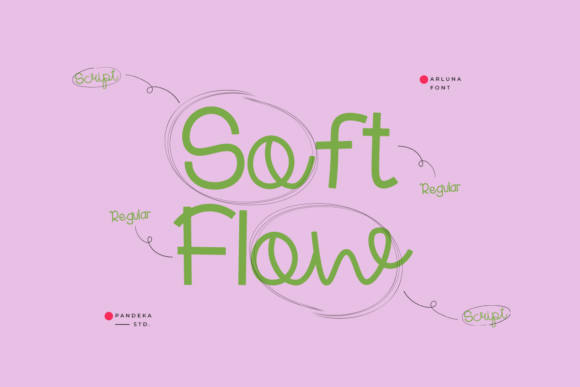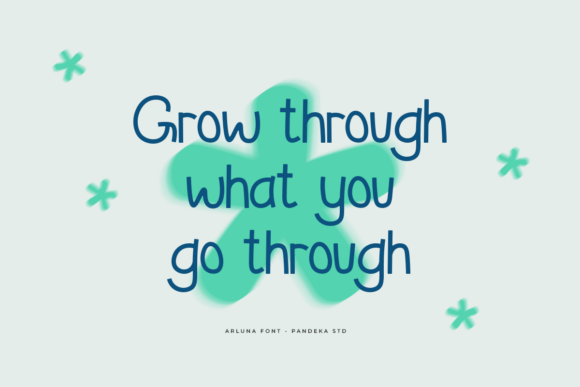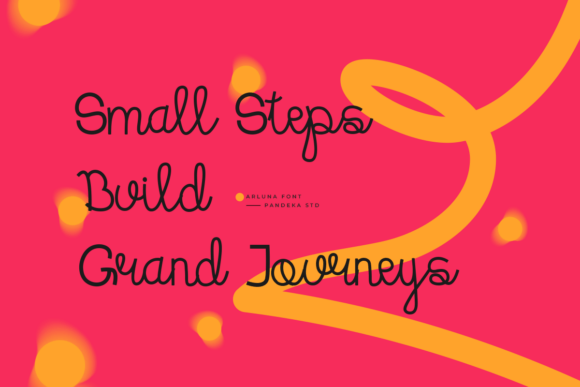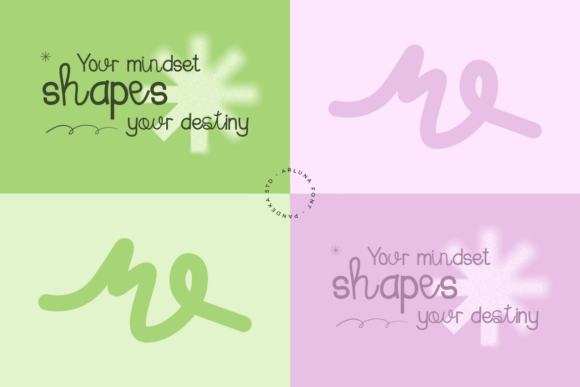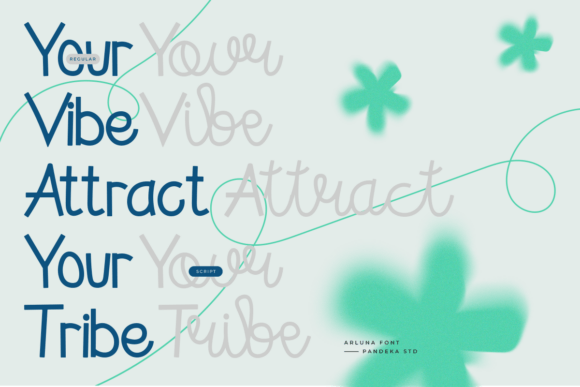
Introducing Arluna Font: Elevate Your Designs with Elegance and Sophistication
In the world of typography, a font can make or break a design. It’s the foundation upon which the entire visual aesthetic is built. For designers and crafters looking to add a touch of elegance and sophistication to their work, Arluna Font is an exceptional choice. This casual modern script font is uniquely crafted with flowing letterforms that are sure to captivate your audience.
What Makes Arluna Font Stand Out?
Arluna Font is not just another script font; it’s a carefully designed typeface that brings a charming and sophisticated touch to any design. Here are a few key features that make Arluna stand out:
- Uniquely Crafted Letterforms: Each letter in Arluna is meticulously designed to flow seamlessly into the next, creating a beautiful and harmonious script that’s perfect for a variety of design applications.
- Casual yet Elegant: Arluna strikes the perfect balance between casual and elegant, making it suitable for designs that require a touch of sophistication without being too formal.
- Versatile: Whether you’re working on branding, invitations, social media graphics, or any other design project, Arluna is versatile enough to fit in seamlessly.
Arluna Font is incredibly versatile, making it suitable for a wide range of design projects. Here are some of the ways you can use Arluna to elevate your designs:
- Branding: Create a lasting impression with Arluna’s elegant and sophisticated script. It’s perfect for logos, business cards, and other branding materials.
- Invitations: Whether you’re designing wedding invitations, birthday party invites, or any other type of event invitation, Arluna adds a touch of class and elegance.
- Social Media: Stand out on social media with Arluna’s unique and captivating script. It’s perfect for creating eye-catching graphics, posts, and stories.
- Elegant Typography: For designers looking to create elegant and sophisticated typography, Arluna is an excellent choice. Use it for quotes, posters, and other typography-focused designs.
Why Choose Arluna Font?
With so many fonts available, why choose Arluna? Here are a few compelling reasons:
- Unique Design: Arluna’s unique design ensures that your work stands out from the crowd. Its flowing letterforms and elegant script make it a one-of-a-kind font.
- Easy to Read: Despite its elegant and cursive nature, Arluna is surprisingly easy to read, making it suitable for both headings and body text.
- Highly Versatile: Arluna can be used in a variety of design applications, from digital to print, making it a valuable addition to any designer’s font library.
How to Use Arluna Font in Your Designs
Using Arluna Font in your designs is straightforward. Here are a few tips to get you started:
- Pair it with Other Fonts: Arluna pairs well with a variety of fonts. Experiment with different combinations to find the perfect match for your design.
- Experiment with Colors: Arluna looks great in a variety of colors. Don’t be afraid to experiment with different color combinations to find the one that works best for your design.
- Play with Sizes: Arluna’s elegant script looks great in a range of sizes. Experiment with different sizes to create visual interest and hierarchy in your design.
Arluna Font is a beautiful and versatile script font that’s perfect for designers and crafters looking to add a touch of elegance and sophistication to their work. With its uniquely crafted letterforms, casual yet elegant design, and high versatility, Arluna is an excellent choice for a wide range of design applications. Whether you’re working on branding, invitations, social media graphics, or any other design project, Arluna is sure to elevate your designs and leave a lasting impression on your audience.